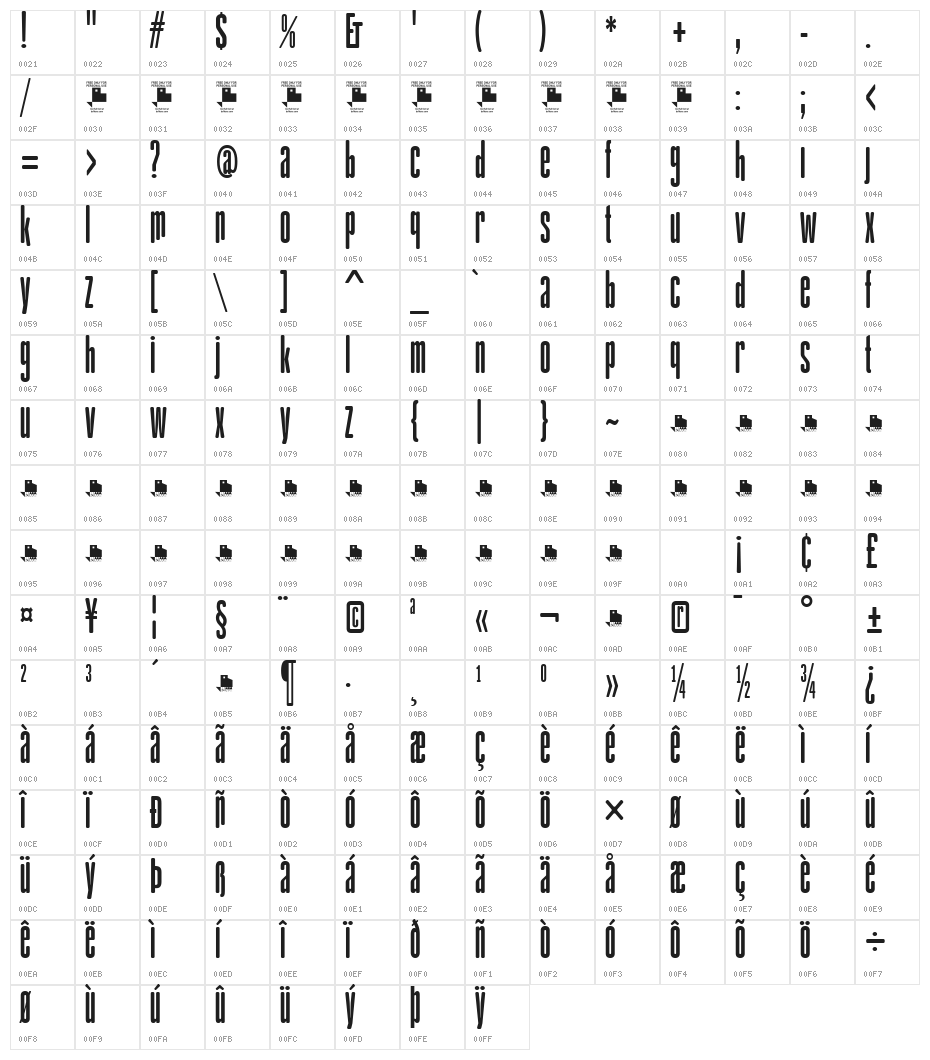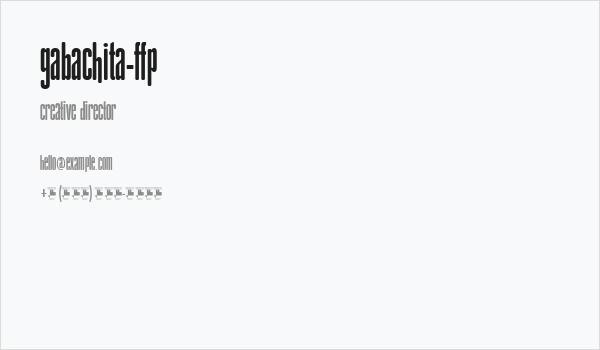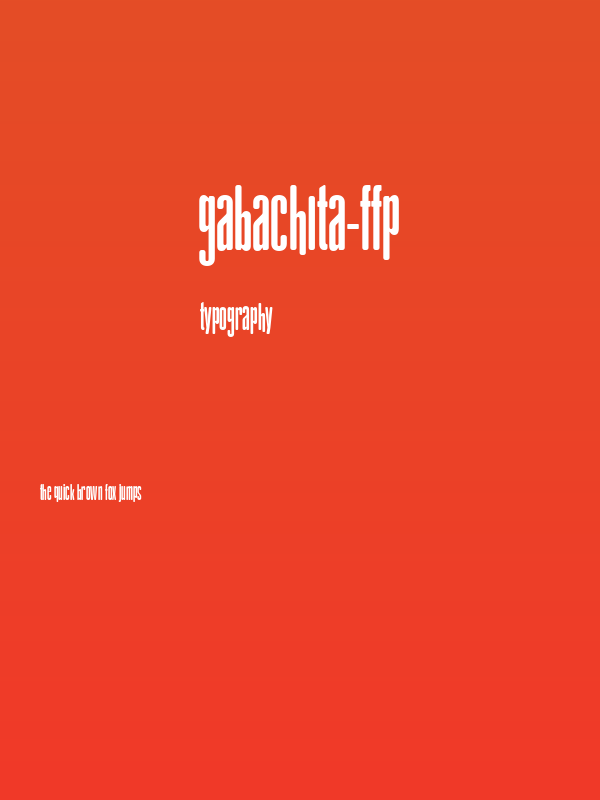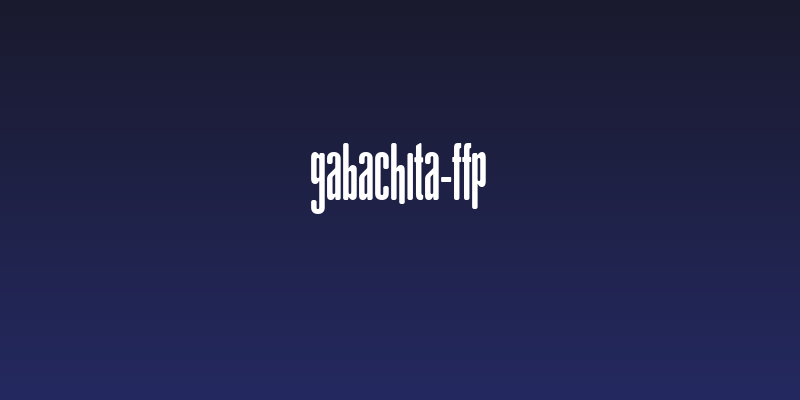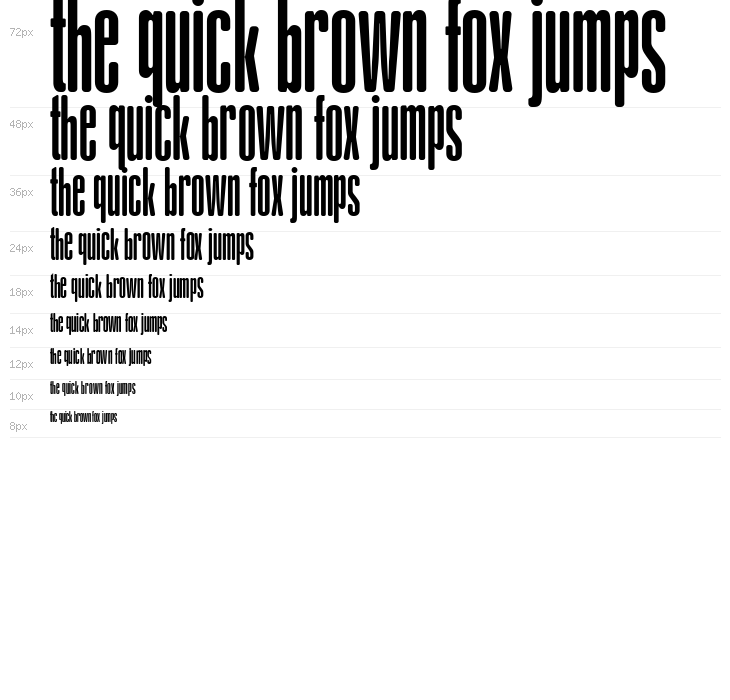
gAbAcHiTA-FFP Font
gAbAcHiTA-FFP Description
This font features a bold and condensed style with tall, narrow characters. The uppercase and lowercase letters maintain a consistent height, giving it a uniform appearance. The strokes are thick, contributing to a strong visual impact, while the rounded edges soften the overall look. The font includes a full set of uppercase and lowercase letters, numbers, and a variety of special characters. Its design is modern and eye-catching, making it suitable for attention-grabbing headlines or titles.
| Proposed Projects | Ideal for posters, headlines, branding, and advertising materials where a strong visual impact is desired. |